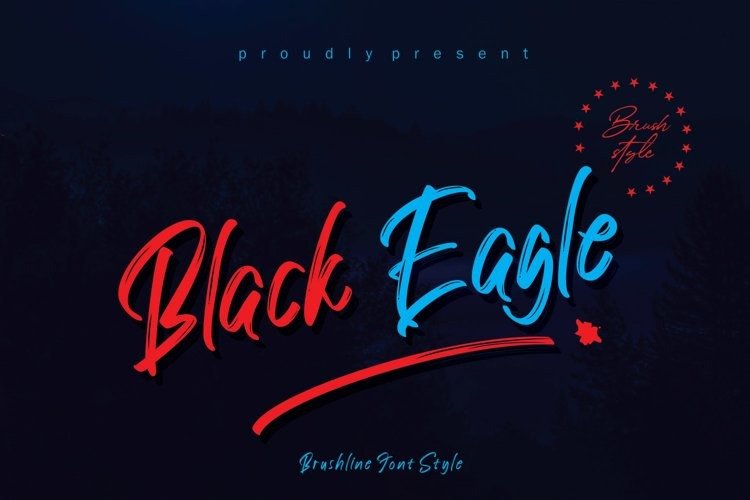
Black Eagle Brush Font
Black Eagle Font is a script typeface hand drawn with dry brush. Black Eagle  is packed with automatic Contextual Alternates that keep the text vivid. Black Eagle also has Swash alternates for lowercase letters that add extra flavour.